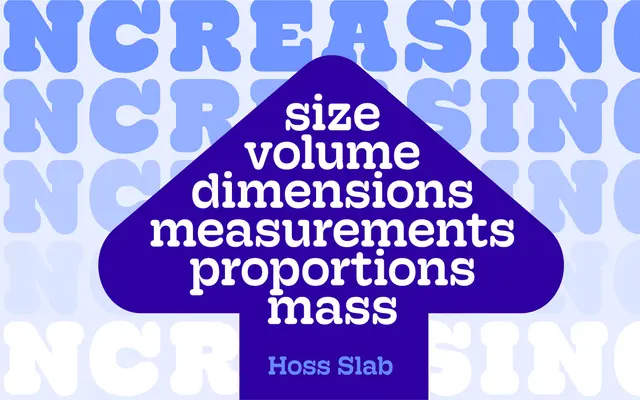
Hoss Round Slab
A rounded slab serif with seven weights and matching italics, forming the third member of PS Type Lab's Hoss type family.
Seven weights from Light to Ultra, each with a matching italic, give the family considerable range across display and text settings. Rounded terminals soften the slab construction and align it visually with its sans companion in the Hoss family. A variable font is available alongside discrete static styles, and OpenType features include schoolbook alternates, oldstyle figures, fractions and discretionary ligatures.
A slab serif family with rounded terminals, positioned as the third sibling in the Hoss Family alongside a sans counterpart, with uniform slab serifs and geometric construction.